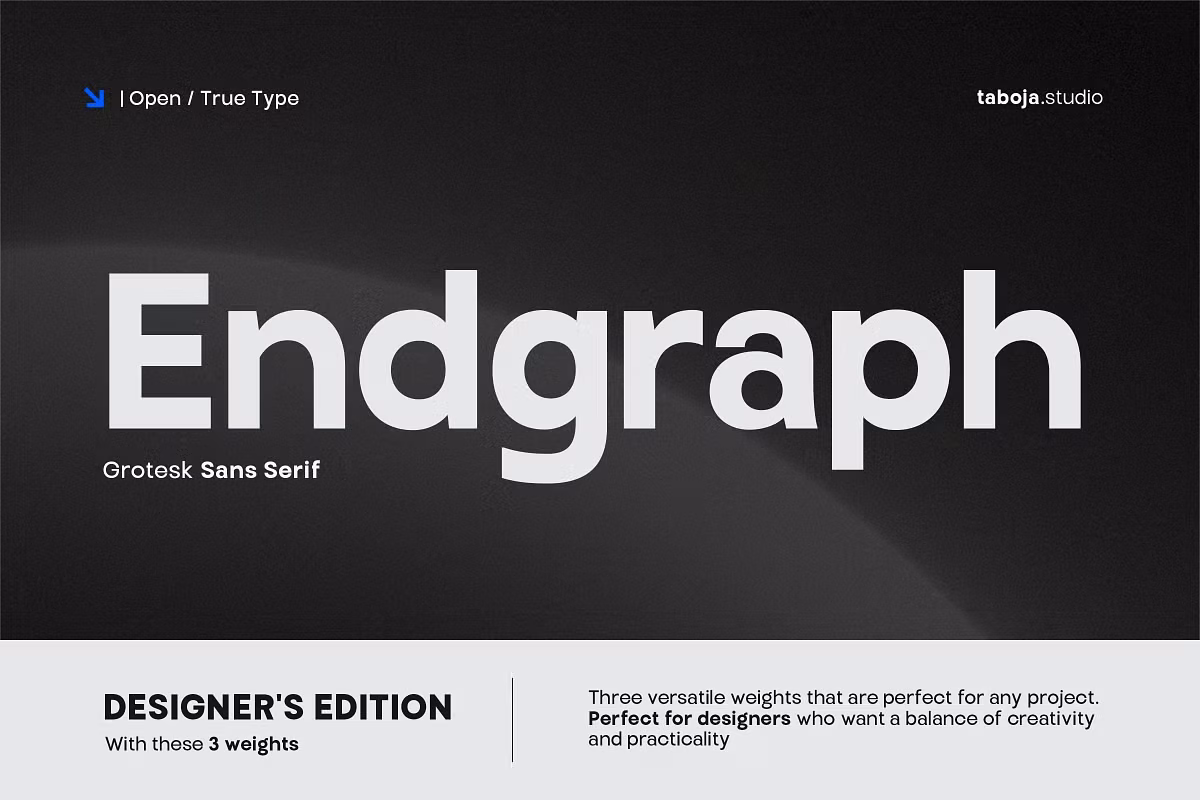
TBJ Endgraph 3-Sans Family Free Download is a modern sans-serif typeface family that combines sleek lines with a clean and minimalist design. It includes a variety of weights and styles, making it highly versatile for a wide range of design projects. Ideal for branding, web design, user interfaces, editorial layouts, and corporate materials, TBJ Endgraph offers a polished, contemporary aesthetic.
The family’s geometric structure and high legibility ensure that it works well in both small and large text sizes, giving you the flexibility to create balanced and professional designs.